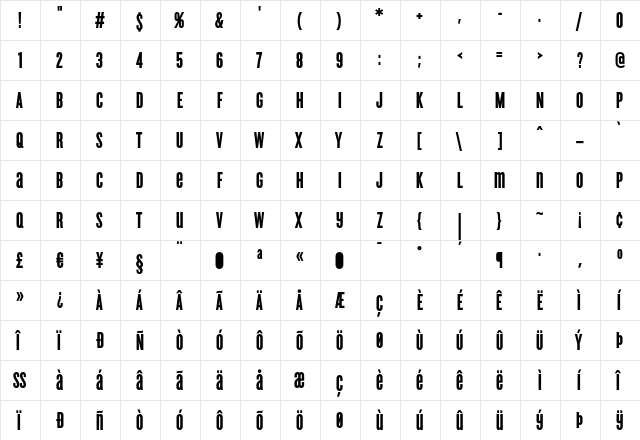
Cyclone Background
| Foundry | C) - Hoefler & Frere-Jones Typography, Inc |
Design Context for Cyclone Typeface
Cyclone softens its letterforms with rounded terminals, giving it an approachable, friendly quality that works well in consumer-facing and digital contexts.
Well-suited to UI design, mobile interfaces, and any brand that wants approachability without sacrificing clarity.
Font Pairing: Pairs well with a rounded or humanist sans for body copy, maintaining the friendly tone without relying on Cyclone to carry extended reading.
Pro Tip: Use Cyclone for UI elements, app interfaces, and anywhere a friendly, approachable tone needs to be maintained without sacrificing clarity.